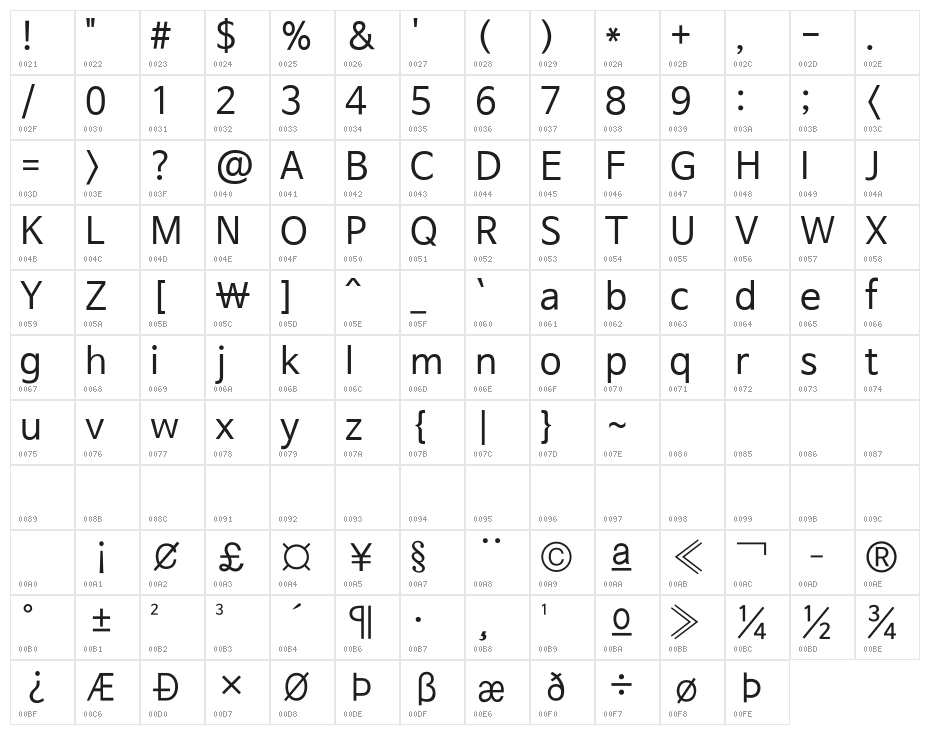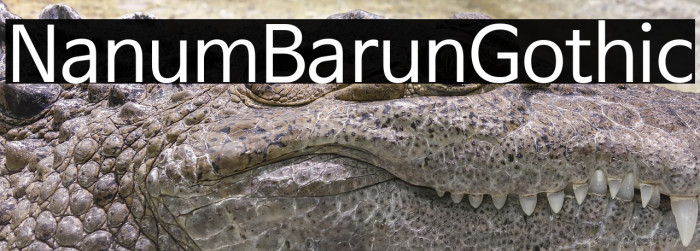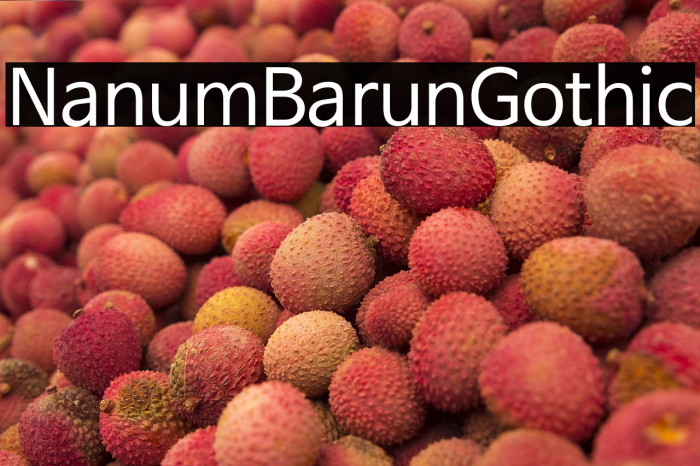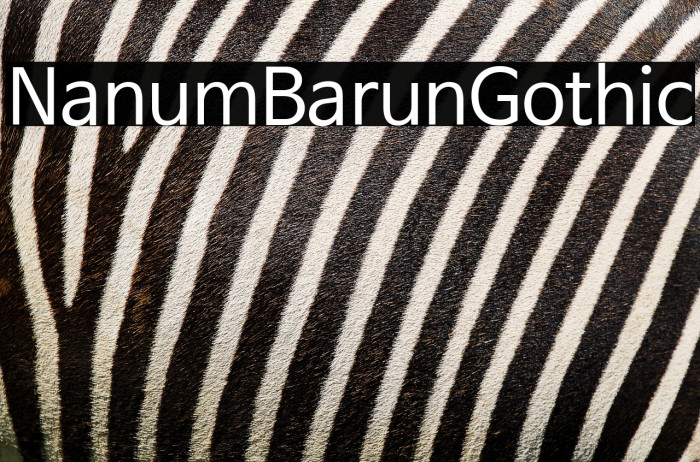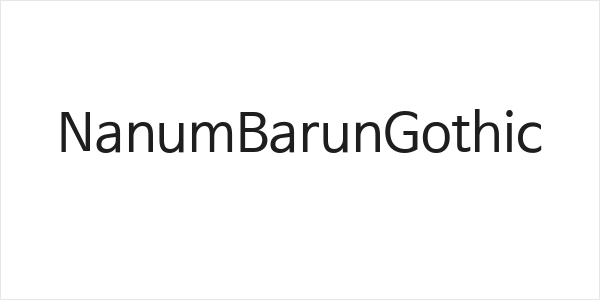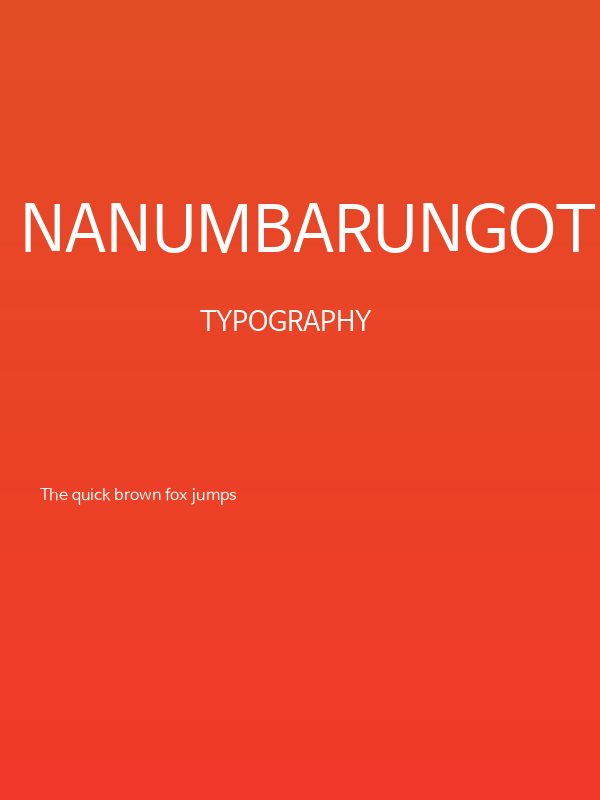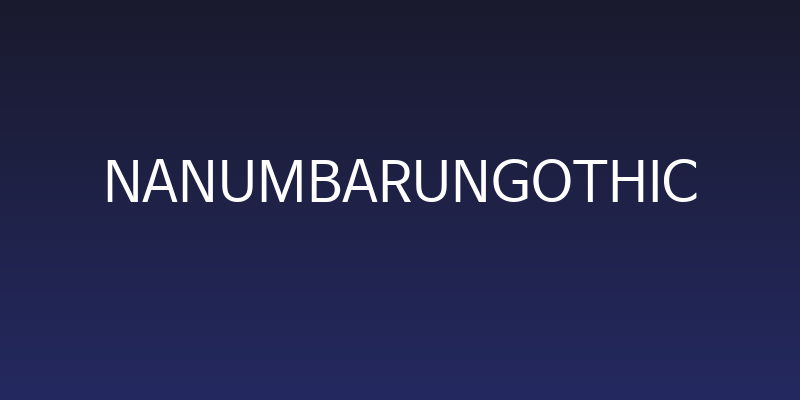
NanumBarunGothic Font
NanumBarunGothic Description
This typeface presents a clean and modern aesthetic, characterized by its sans-serif style. The letters are evenly spaced with a consistent stroke width, offering a harmonious and balanced appearance. The uppercase and lowercase letters maintain a uniform height, contributing to a cohesive look. The numerals are clear and legible, making them suitable for various applications. Special characters are well-defined, enhancing the font's versatility. Its simplicity and clarity make it ideal for digital and print media, ensuring readability across different sizes.
| Proposed Projects | Ideal for web design, corporate branding, user interfaces, and editorial content. |